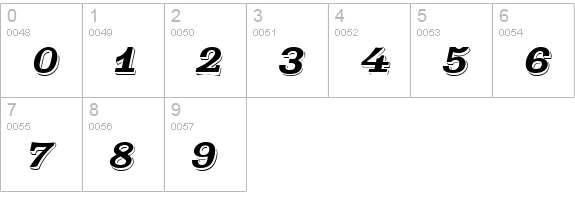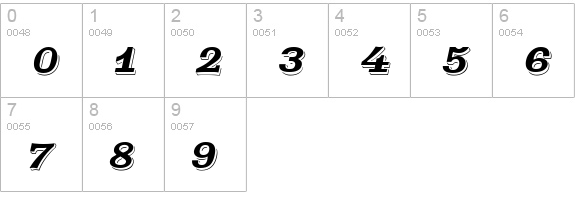
Goldstone Italic Font Details
Goldstone Italic is a distinctive, italic variant in the Goldstone typeface family \xE2\x80\x94 well suited to design and typography projects.
Goldstone Italic is a stunning and sophisticated display font with a touch of elegance and charm. Its sleek curves and stylish glyphs add a modern flair to any design project. The italicized style of Goldstone gives it a dynamic and expressive look, perfect for adding emphasis and personality to your text. Best of all, Goldstone Italic is available for free download at FontsMarket.com, making it accessible to all designers and creatives looking to elevate their work with a touch of luxury. Whether you're designing a logo, creating a poster, or crafting a stylish invitation, Goldstone Italic is sure to make a statement and leave a lasting impression. Download this exquisite font today and take your designs to the next level!